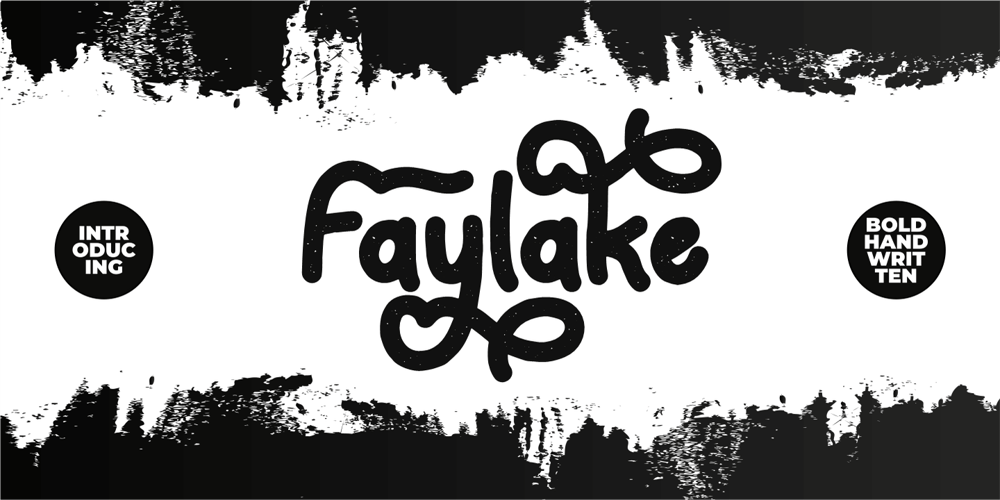
Faylake Font Family was designed by Putra Novembria Candra Kusuma and published by Putracetol. Faylake contains 2 styles and family package options. Faylake is a bold monoline handwritten font and comes with both regular and rough versions. This font can also be used in various styles, casual, vintage, fun and simple letter. Faylake is perfect for branding design, posters, apparel, for logotype, website header, fashion design and much more. It comes with OpenType features and a lot of alternates, its help you to make great lettering. This font also supports multiple languages.